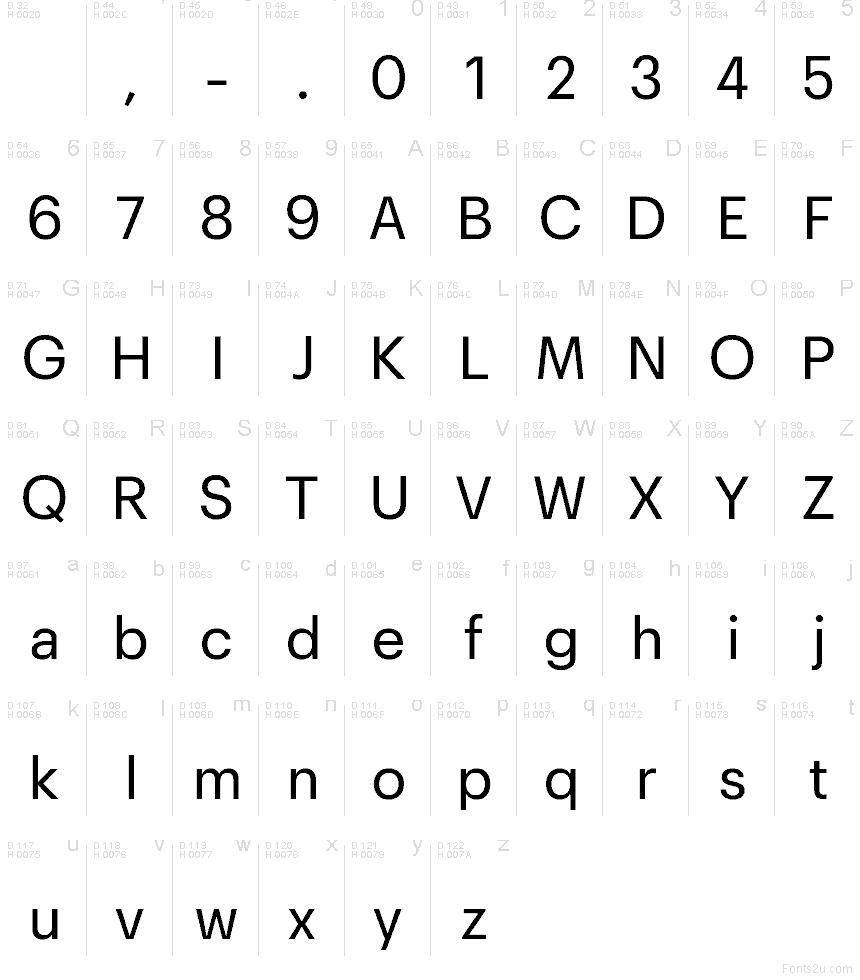
Encamp Test Regular
Encamp Test font by Punchform is a free sans serif typeface that gives you clean, unfussy typography without feeling cold. Its straight, even strokes and open counters create a quiet clarity, while the slightly compact shapes keep text tight and efficient on the page. Nothing shouts, nothing distracts—just a crisp, contemporary rhythm that reads smoothly at a glance or in long passages.
Using Encamp Test, you can set product interfaces, app UI labels, pitch decks, posters, editorial layouts, or minimalist branding with confidence. The spacing feels carefully tuned, so small sizes stay legible and larger headlines look tidy rather than shouty. This free font pairs effortlessly with a light serif for body copy, or just run it in two weights and play with size contrast to build a calm, structured hierarchy.